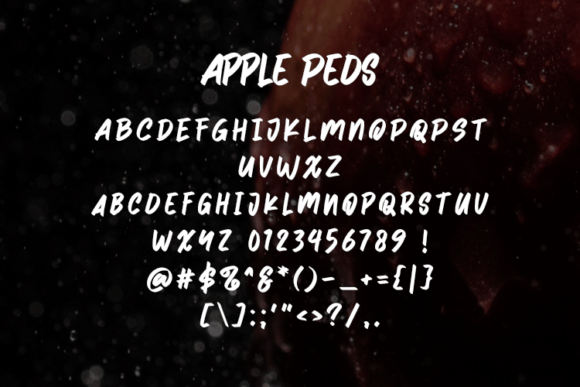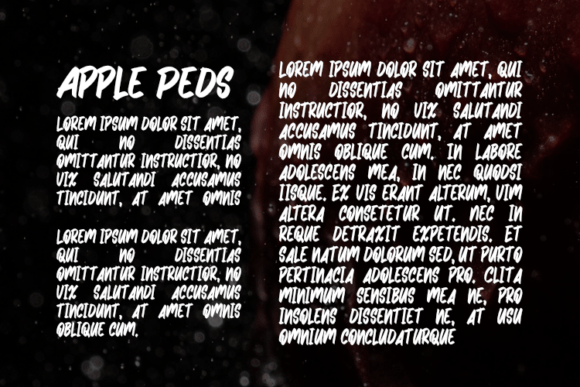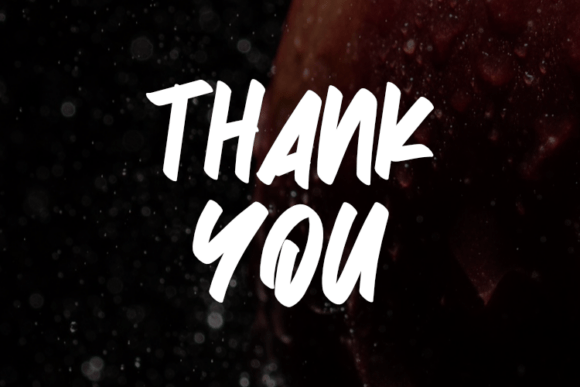
Meet Apple Reds: The Versatile Font That’s About to Revolutionize Your Designs
I’ll never forget the time I was working on a project for a client who wanted a bold, eye-catching font for their clothing line branding. I spent hours scouring the internet for the perfect typeface, but nothing seemed quite right. That was until I stumbled upon Apple Reds, a game-changing font that’s been a staple in my design toolkit ever since.
An Honest Review of Apple Reds
What I Love About Apple Reds ✨
- ✅ Universal compatibility: Apple Reds works seamlessly with any software, making it a designer’s best friend.
- ✅ Sleek performance: This font is optimized for performance, ensuring crisp and clear text across all platforms.
- ✅ Charismatic appeal: Apple Reds has a unique charm that guarantees to leave a lasting imprint on your designs.
- ✅ Versatile: From t-shirt designs to clothing line branding, Apple Reds adapts to any project with ease.
- ⚠️ May not be suitable for very small font sizes (below 10pt).
One of the standout features of Apple Reds is its support for OpenType features, glyphs, and stylistic alternates. These features allow you to add an extra layer of creativity to your designs. For example, you can use:
- Ligatures to create custom letter combinations.
- Stylistic alternates to swap out letters for alternative designs.
- Glyphs to add icons, symbols, or other special characters to your text.
The Story Behind Apple Reds
Apple Reds was designed with versatility in mind. The creator, a renowned typographer, aimed to craft a font that would be both stylish and functional. Inspired by the vibrant colors of apples, the font’s bold, yet elegant design makes it perfect for a wide range of applications.